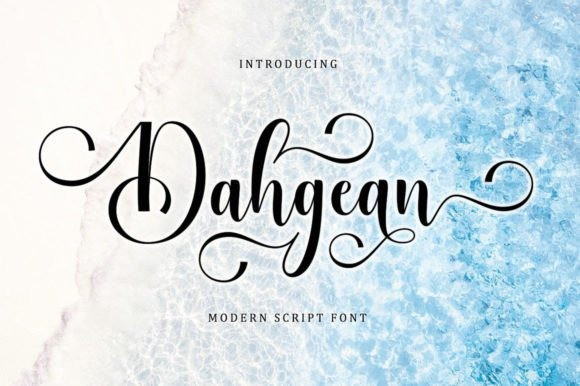
Dahgean Font
Dahgean Script Font is a modern script font that features a classic and Unique touch.
Dahgean is attractive because it is sleek, clean, feminine, sensual, glamorous, simple, and very easy to read, thanks to its many beautiful letter relationships. Classic style is very suitable to be applied in various formal forms such as invitations, labels, restaurant menus, logos, fashion, makeup, stationery, novels, magazines, books, greeting/wedding cards, packaging, labels, or all kinds of advertising purposes.